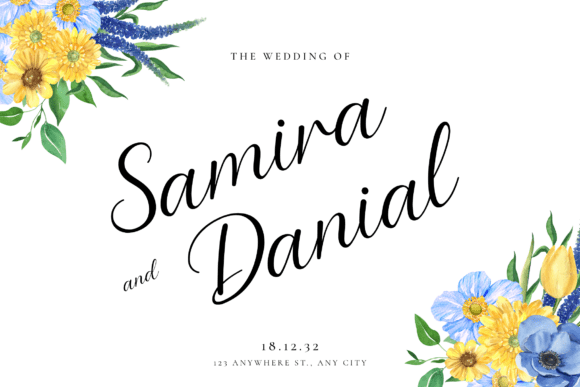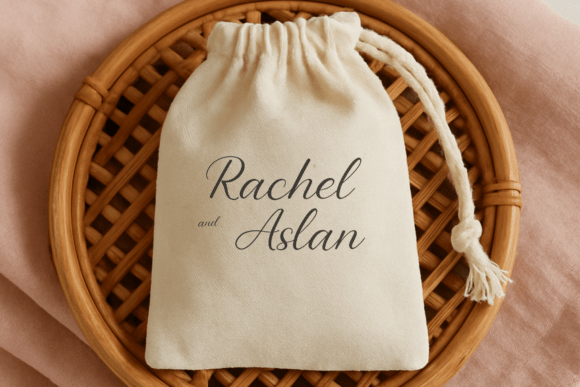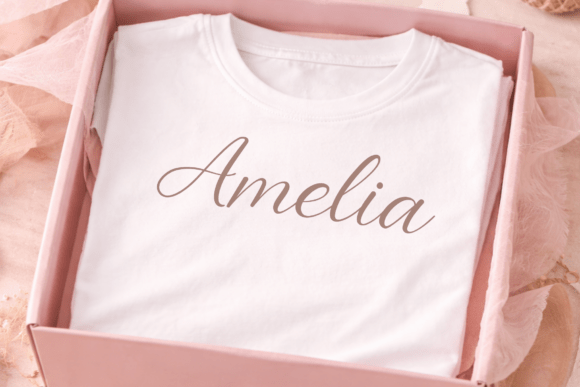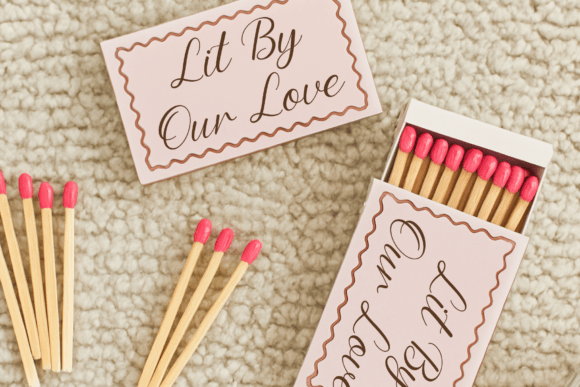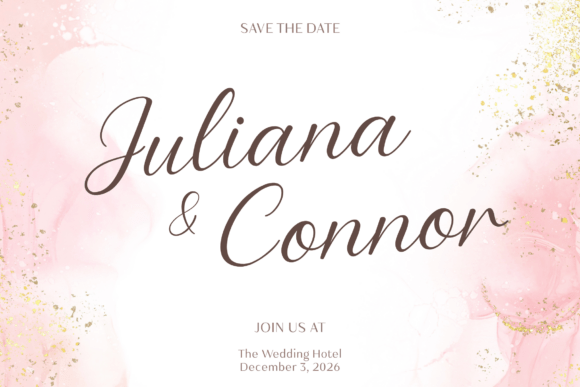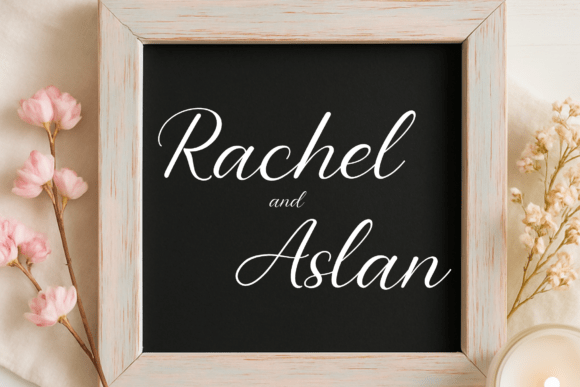
Introducing Amber Light Font: Elevate Your Designs with Elegance
Are you looking for a font that exudes sophistication, luxury, and a touch of warmth? Look no further than Amber Light, a beautiful handwritten script font that is sure to elevate your designs to the next level. With its flowing strokes, delicate curves, and stylish swashes, Amber Light is the perfect choice for designers and crafters seeking to add a refined and elegant touch to their work.
The Characteristics of Amber Light Font
Amber Light is a carefully crafted font that boasts a range of characteristics that make it truly unique. Its flowing strokes and delicate curves give it a soft, luxurious feel that is perfect for creating a premium look. The font’s stylish swashes add a touch of sophistication, making it ideal for high-end branding, wedding designs, and feminine projects.
What Makes Amber Light Font So Versatile?
One of the standout features of Amber Light is its versatility. This font can be used for a wide range of design projects, from elegant branding and packaging to beautiful wedding invitations and feminine designs. Whether you’re looking to create a luxurious look or a more playful, whimsical feel, Amber Light is the perfect choice.
Perfect for Branding, Weddings, and Feminine Designs
Amber Light is particularly well-suited for designers and crafters working on branding, wedding, and feminine designs. Its elegant, refined feel makes it perfect for:
- Branding: Create a luxurious and sophisticated brand identity with Amber Light. Its flowing strokes and delicate curves make it perfect for logos, business cards, and packaging.
- Weddings: Add a touch of elegance to your wedding designs with Amber Light. This font is perfect for invitations, save-the-dates, and other wedding stationery.
- Feminine Designs: Amber Light is also ideal for feminine designs, such as fashion branding, beauty packaging, and lifestyle blogs.
Why Choose Amber Light Font?
- Unique and Elegant: Amber Light is a truly unique and elegant font that will set your designs apart from the crowd.
- High-Quality: This font is carefully crafted to ensure that it is of the highest quality, with flowing strokes and delicate curves.
- Versatile: Amber Light can be used for a wide range of design projects, making it a great addition to any designer’s toolkit.
- Easy to Read: Despite its elegant feel, Amber Light is easy to read, making it perfect for body text as well as headings.
How to Use Amber Light Font in Your Designs
- Pair it with Other Fonts: Amber Light looks great when paired with other fonts, such as sans-serif fonts for a bold, modern look.
- Experiment with Swashes: The stylish swashes in Amber Light can add a touch of sophistication to your designs. Experiment with different swash styles to find the one that works best for your project.
- Use it for Headings and Titles: Amber Light is perfect for headings and titles, where its elegant feel can really shine.
In conclusion, Amber Light is a beautiful and elegant handwritten script font that is sure to elevate your designs to the next level. With its flowing strokes, delicate curves, and stylish swashes, this font adds a sophisticated touch while remaining warm and inviting. Perfect for branding, weddings, and feminine designs, Amber Light creates a premium look that feels both timeless and modern. So why wait? Download Amber Light today and start creating stunning designs that will leave a lasting impression.